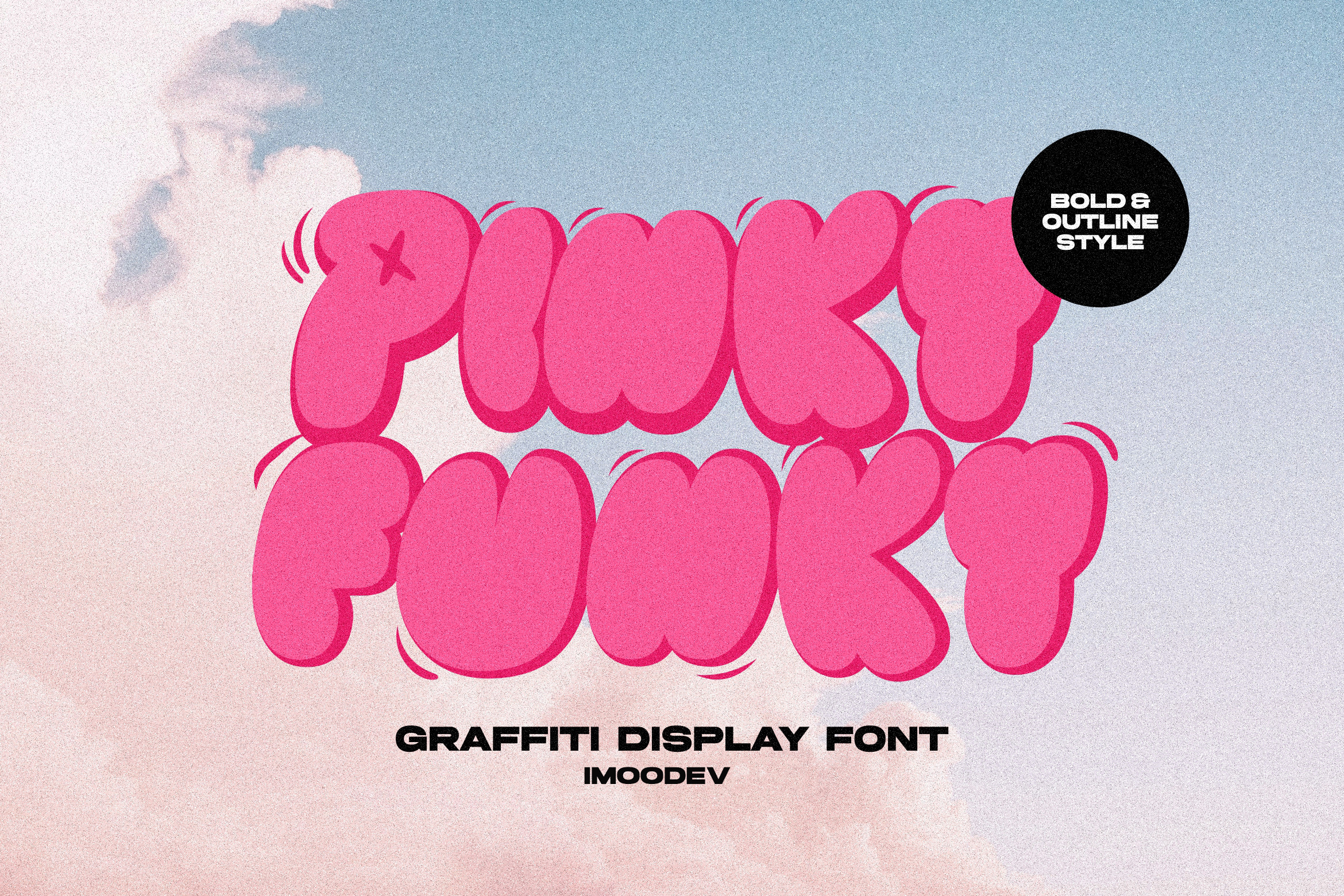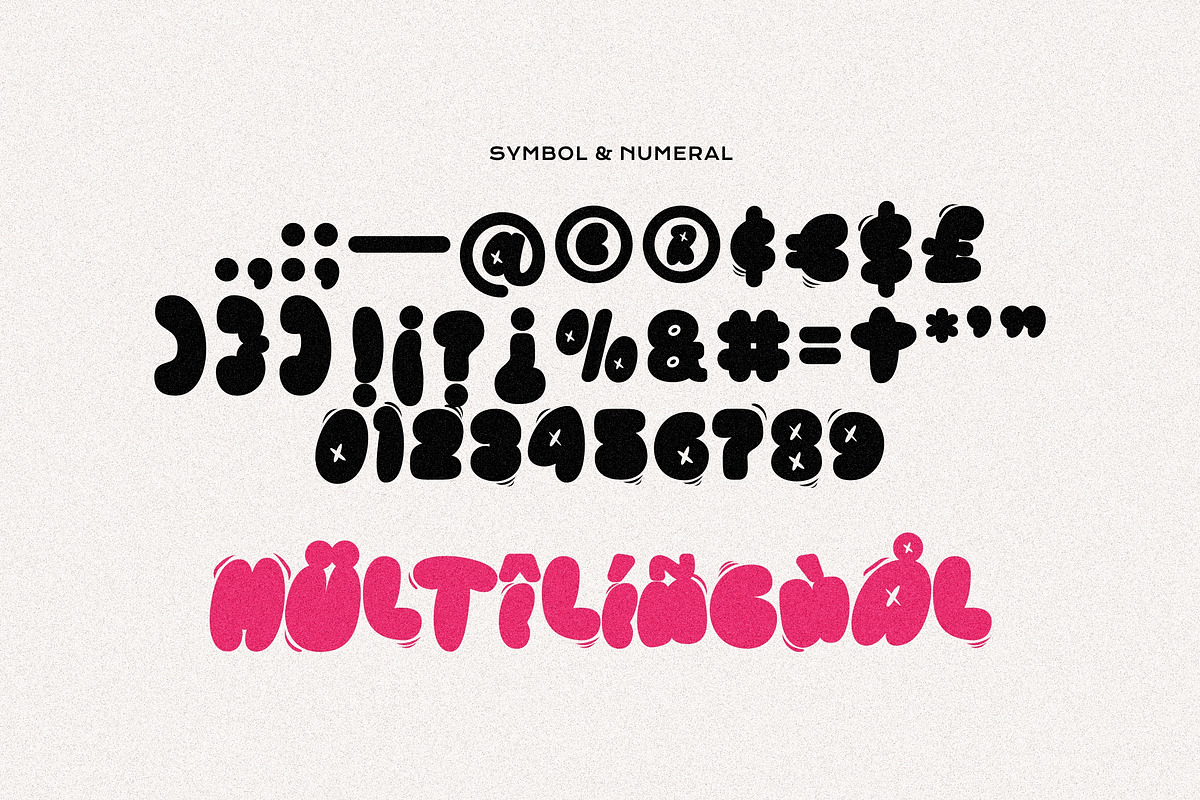
Pinky Funky - Bubble Graffiti Font
Introducing Pinky Funky, a graffiti inspired display font that bursts with energy and playful charm. This font captures the bold, free flowing essence of street art with its soft, rounded, and puffy letterforms, making every word feel approachable and fun.
The characters of Pinky Funky are designed to make a statement. Each letter is thick and bubbly, reminiscent of classic bubble graffiti but with a clean, modern twist. Small 'x' detail within the counters (the enclosed spaces) adding a unique and stylish flair.
Pinky Funky comes in two versatile styles:
Regular: A solid, bold style that is perfect for impactful headlines, logos, and eye-catching titles.
Outline: A clean, outlined version that works beautifully for layering, creating a modern Y2K aesthetic.
It's the perfect choice for branding, street art, social media graphics, merchandise, event posters, streetwear branding, pop culture, and anything that needs a dose of funky, youthful energy.